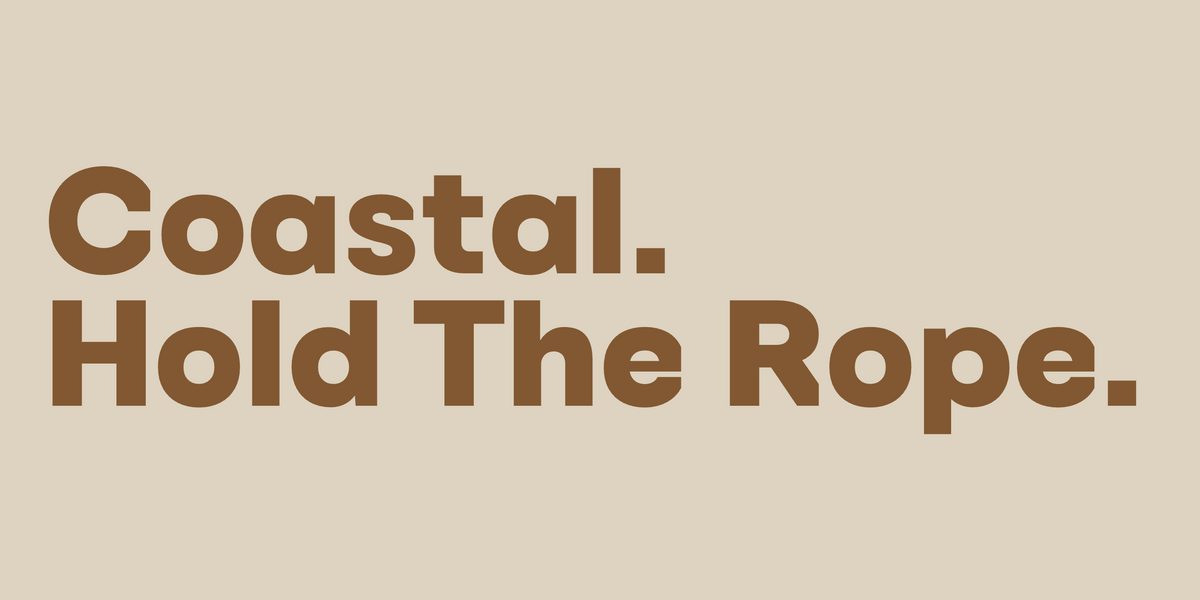
Nautical typography has a particular look: bold condensed serifs that recall ship signage and 19th-century maritime advertising, wide sans-serifs that work for harbor branding and coastal hospitality, considered serifs that suit yacht clubs and sailing journals. These five Mojomox fonts cover the range, from confident display work to quiet body type.
1. Apex
Bold pointy sans-serif with sharp alternates. The triangular apexes give it the kind of pointed energy that suits sailing identities, yacht clubs, and coastal-adventure brands.
2. Saltz
Sharp condensed serif that channels the 19th-century maritime poster tradition. The condensed proportions are exactly what designers reach for when a brand needs nautical authenticity without going literal.
3. Byrl
Wide sans-serif for a cool, considered look. The extended proportions read confident and architectural, fitting for harbor signage and coastal hospitality work.
4. Ark Sans
Modern architectural sans with cut diagonals. The structural detail reads industrial-confident, working for shipyard-adjacent and engineering-led maritime identities.
5. Mod
Modern serif with elegant proportions. The quieter pick for nautical work, suited to yacht clubs, sailing publications, and coastal lifestyle brands that want sophistication.
How to use nautical type
Real maritime branding usually pairs a bold condensed display font (Saltz, Apex) with a quieter sans-serif for body text (Vole, Auria Sans, Roma). Avoid clichés (anchors as letterforms, rope-style fonts). The strongest nautical identities work through proportion and weight, not through ornament.